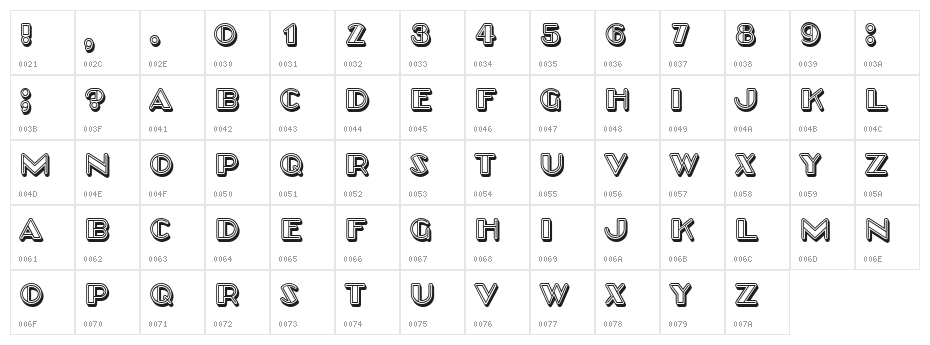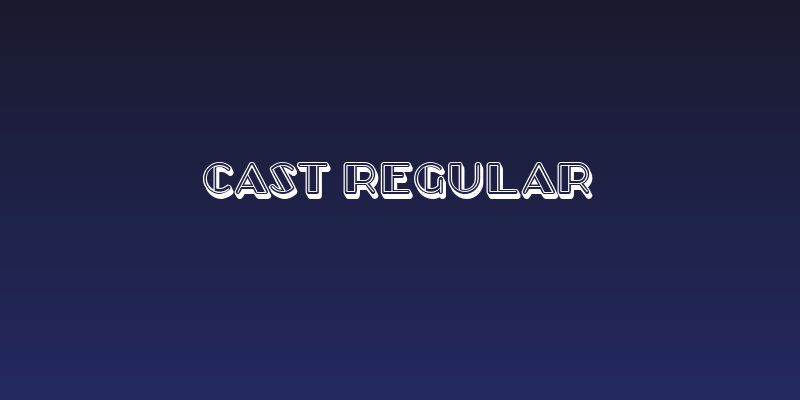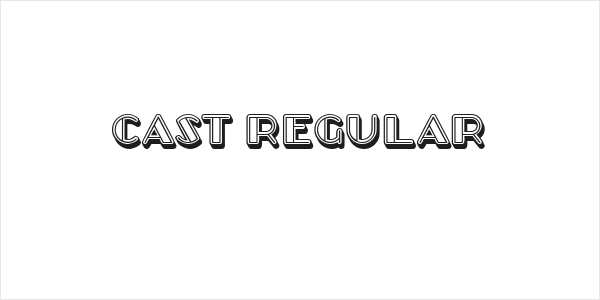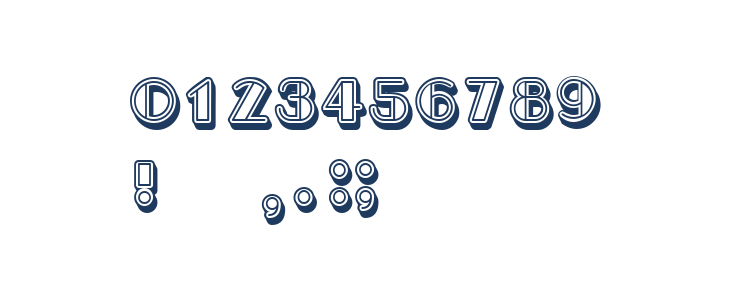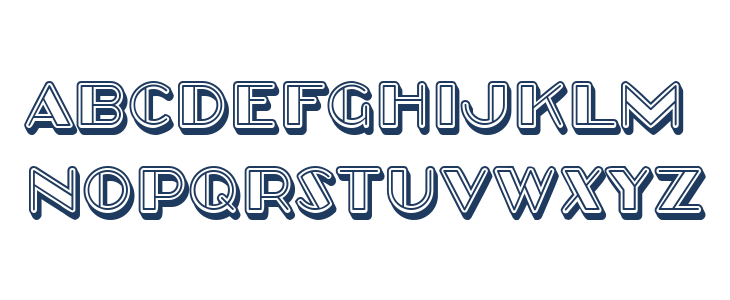
Cast Regular Font
Cast Regular Description
This font features a bold, decorative style with a three-dimensional effect achieved through the use of thick outlines and inner lines. The characters are uppercase and lowercase letters, along with numbers and a selection of special characters. The design is playful and eye-catching, making it suitable for creative and dynamic projects. The letters have a consistent width and height, providing a uniform appearance. The contrast between the thick outlines and the inner lines adds depth and interest, making it stand out in various design contexts.